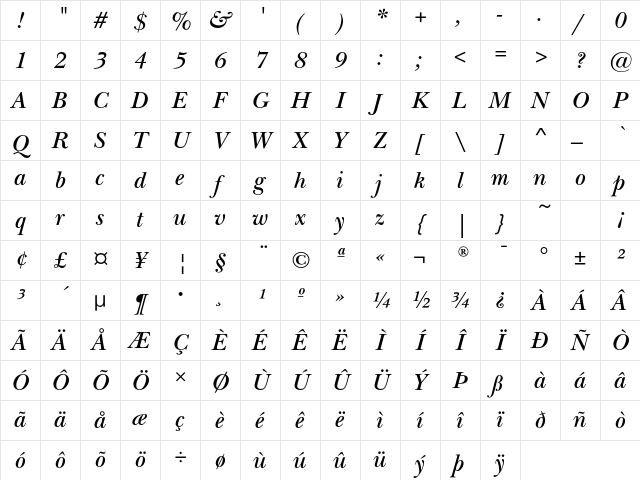
Complete NewBaskervilleEF SemiBoldIta glyph index. Displaying only characters natively supported by NewBaskervilleEF SemiBoldIta font.
NewBaskervilleEF is a composed and adaptable typeface that performs quietly and consistently across a wide range of design contexts. Its bold stroke weight gives it real presence on the page.